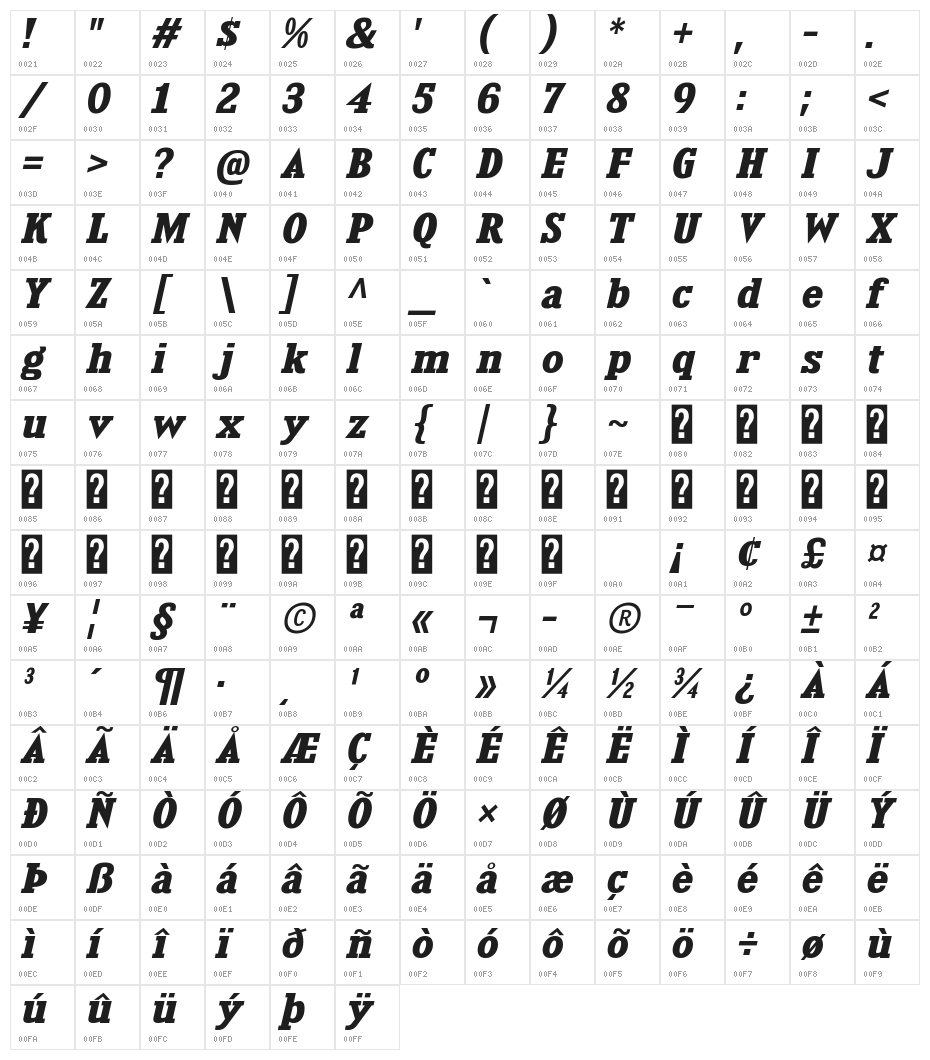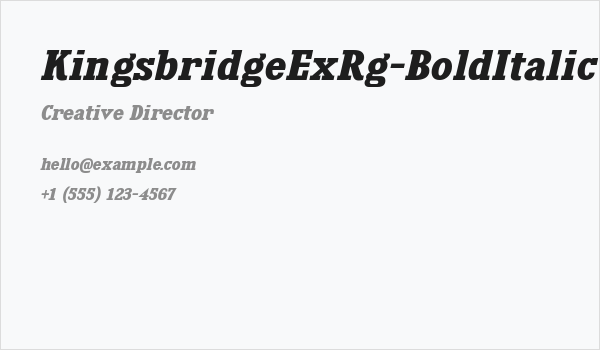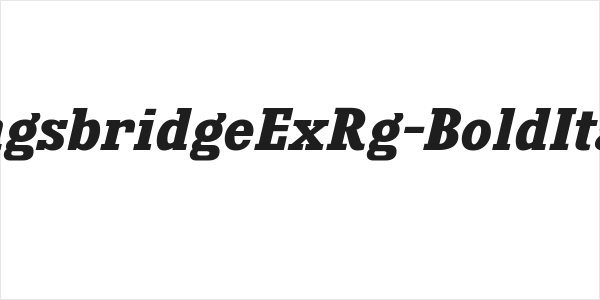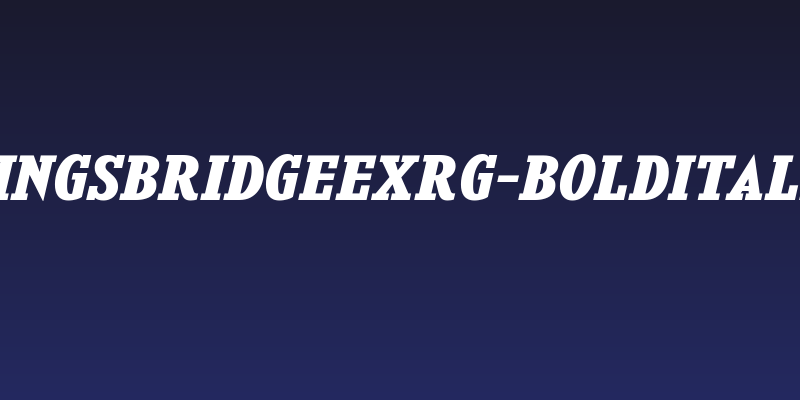
KingsbridgeExRg-BoldItalic Font
KingsbridgeExRg-BoldItalic Description
This font exhibits a bold and italicized style, characterized by strong, thick strokes and a pronounced slant. The uppercase letters are robust and commanding, while the lowercase letters maintain a consistent flow with slightly rounded edges. The numerals are equally bold, ensuring visibility and impact. Special characters are designed with the same boldness, providing a cohesive look across all glyphs. The overall appearance is dynamic and assertive, making it suitable for attention-grabbing headlines and titles.
| Proposed Projects | Ideal for projects requiring impactful headlines, such as posters, advertisements, and branding materials. |